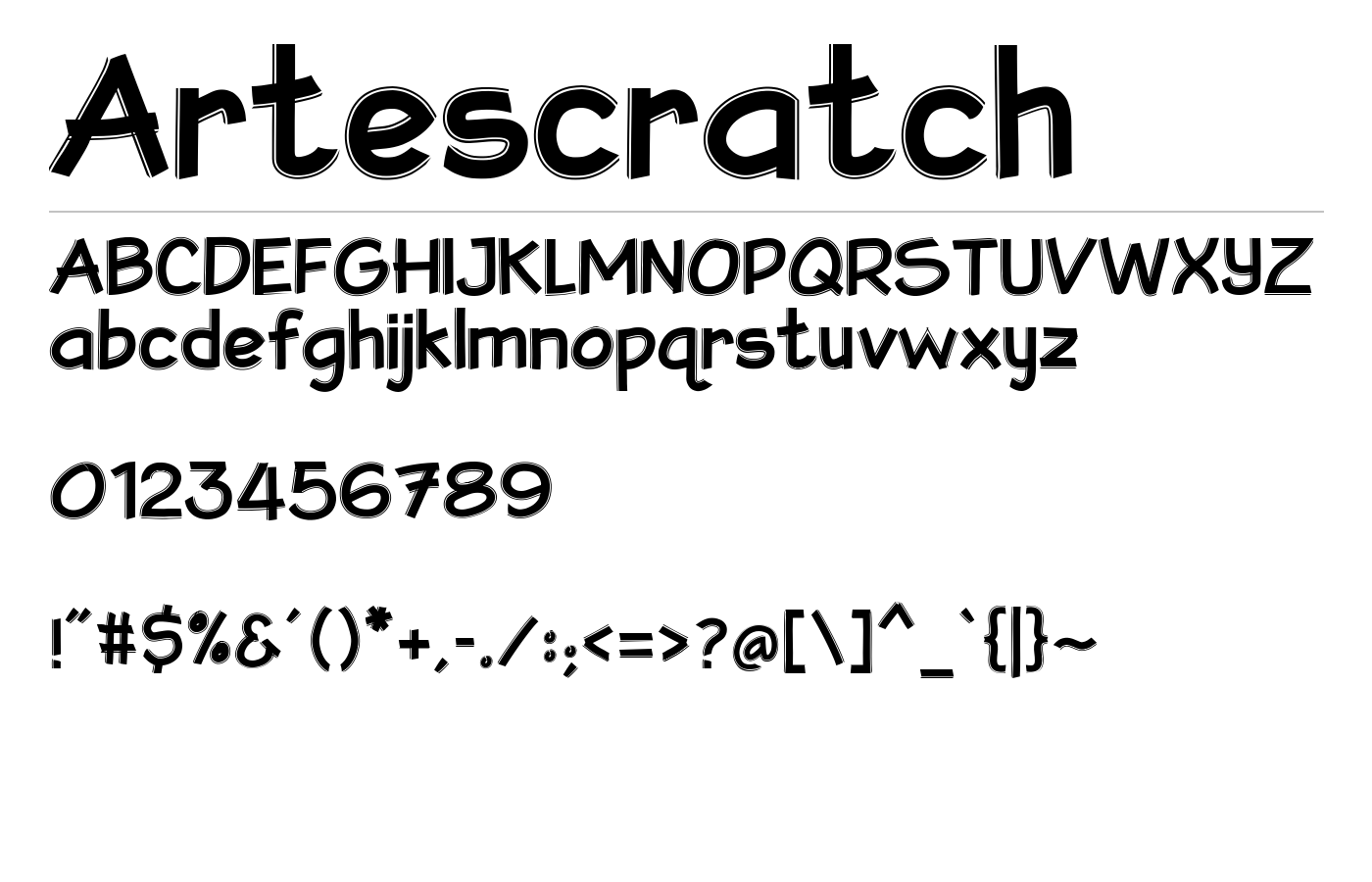
Artescratch is a playful, hand-drawn sans serif font with a lively, slightly irregular style that gives it a casual, creative feel. Its bold weight and moderate x-height make it stand out, while its quirky letterforms and informal strokes add personality, ideal for fun branding, kids’ materials, and artistic projects. This font works well in headlines and posters where a friendly, approachable look is desired.
Artescratch Font
About Artescratch Font
| Font family | Artescratch Font |
| Designer | Lambert Wahang |